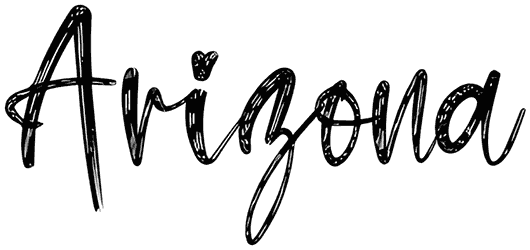
Arizona Font
Are you searching for a cool and playful face to trim your words and impress your audience? As a brush font, Arizona is a nice pickup for your creative design with its realistic and catchy style. This unique script font can provide a distinct outward for your new projects, such as apparel, planners, movie posters, game screens, and so forth.